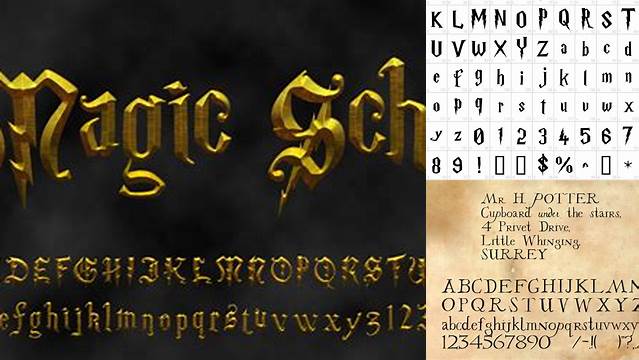
Harry Potter Font: The Magic Behind The Letters
Let's dive into the enchanting world of the Harry Potter font! For fans of the wizarding saga, the lettering style is as iconic as the characters themselves. This article explores everything you need to know about the Harry Potter font, from its origins to how you can use it in your own magical projects. Get ready to be spellbound!
What is the Harry Potter Font?
When we talk about the Harry Potter font, we're often referring to a few different typefaces associated with the book and film series. There isn't just one single font, but rather a collection that evokes the magical aesthetic we all know and love. These fonts are carefully chosen to create a sense of wonder, mystery, and timelessness, perfectly capturing the essence of Hogwarts and the wizarding world. The specific fonts used vary across different editions of the books, movie posters, and merchandise, each contributing to the overall brand identity. Understanding the nuances of these fonts allows fans and designers alike to tap into the unique visual language of Harry Potter, ensuring that any related projects maintain an authentic and recognizable feel. From the bold titles that grab your attention to the elegant body text that guides you through the story, each font choice plays a crucial role in bringing the magic to life.
The History of the Harry Potter Font
The story of the Harry Potter font is actually quite interesting! The creation of the visual identity for the Harry Potter franchise was a collaborative effort, involving graphic designers, typographers, and the creative teams behind the books and films. When the first book was published, different fonts were used for various editions and promotional materials. As the series grew in popularity, a more cohesive visual language was developed, including specific fonts for titles, body text, and branding. For the movies, the design teams delved deeper into creating unique typography that reflected the magical world. They sought fonts that conveyed a sense of history, mystery, and adventure, often drawing inspiration from historical typefaces and adding custom modifications to create a distinct look. The evolution of the Harry Potter font mirrors the growth and increasing sophistication of the franchise itself. Over time, certain fonts became more strongly associated with the brand, solidifying their place in the collective imagination of fans worldwide. This careful curation of fonts has played a significant role in building the Harry Potter brand into the global phenomenon it is today.
Identifying the Main Harry Potter Fonts
Okay, so identifying the exact Harry Potter fonts can be a bit like potion-making – a mix of different elements! However, some key contenders are readily recognizable. One of the most prominent is often cited as a modified version of 'Parry Hotter', which is a font designed to mimic the titles and logos associated with the movies. For the body text in the books, a more classic and readable font like Adobe Garamond is frequently used, ensuring a comfortable reading experience. Movie posters and promotional materials often employ bold, stylized fonts that capture the adventurous and magical spirit of the series. These may include custom-designed fonts or heavily modified versions of existing typefaces. To identify a specific font, you can use online tools like WhatTheFont or Font Identifier, which allow you to upload an image of the text and find the closest matching font. Recognizing these main fonts and their variations helps in appreciating the attention to detail that goes into creating the Harry Potter universe. Each font is carefully selected to evoke a specific mood and contribute to the overall aesthetic, making the visual language of Harry Potter as captivating as the stories themselves.
Harry Potter Font Alternatives
If you can't find the exact Harry Potter font you're looking for, don't worry! There are plenty of alternatives that capture a similar magical feel. Fonts like Lumox, Magic School, and Harry P are popular choices among fans. These fonts often feature similar stylistic elements, such as decorative serifs, whimsical curves, and a sense of historical charm. When choosing an alternative, consider the overall tone and purpose of your project. A more formal font might be suitable for invitations or certificates, while a more playful font could be used for posters or social media graphics. You can also experiment with different font combinations to create a unique and eye-catching design. For example, you could use a Harry Potter-inspired font for headings and a more readable font like Garamond or Times New Roman for body text. By exploring different font alternatives, you can find the perfect way to evoke the magic of Harry Potter in your own creative work.